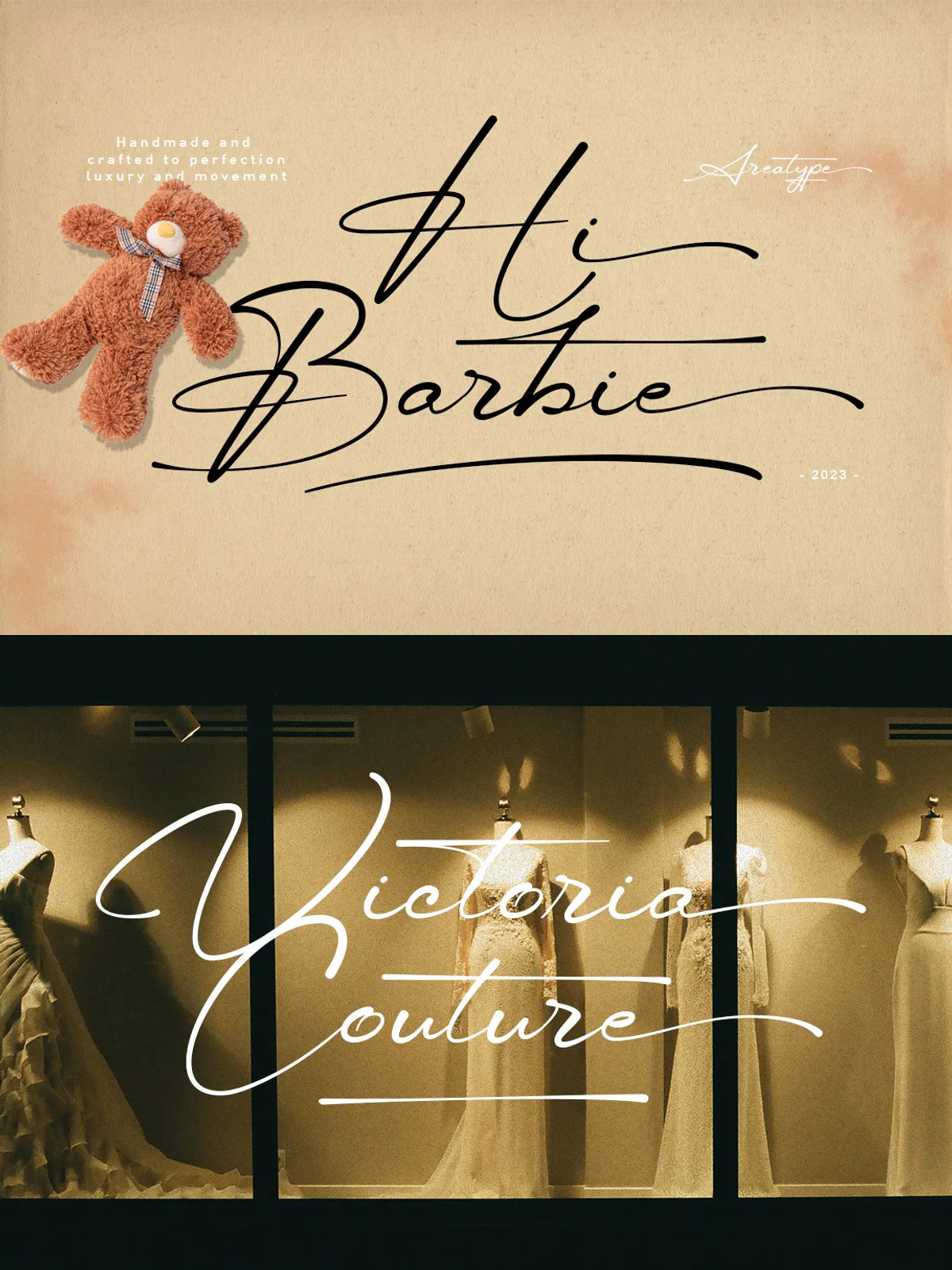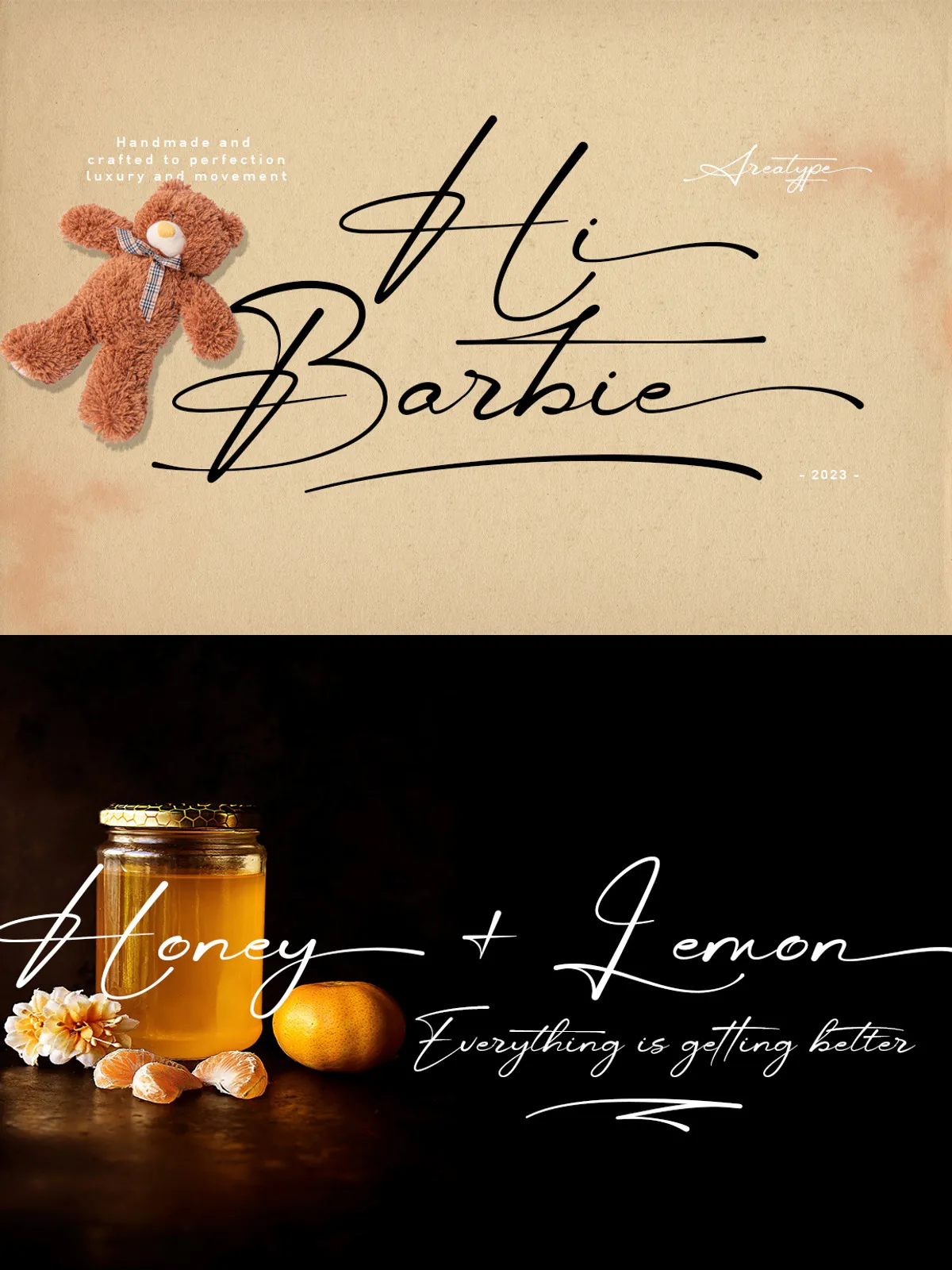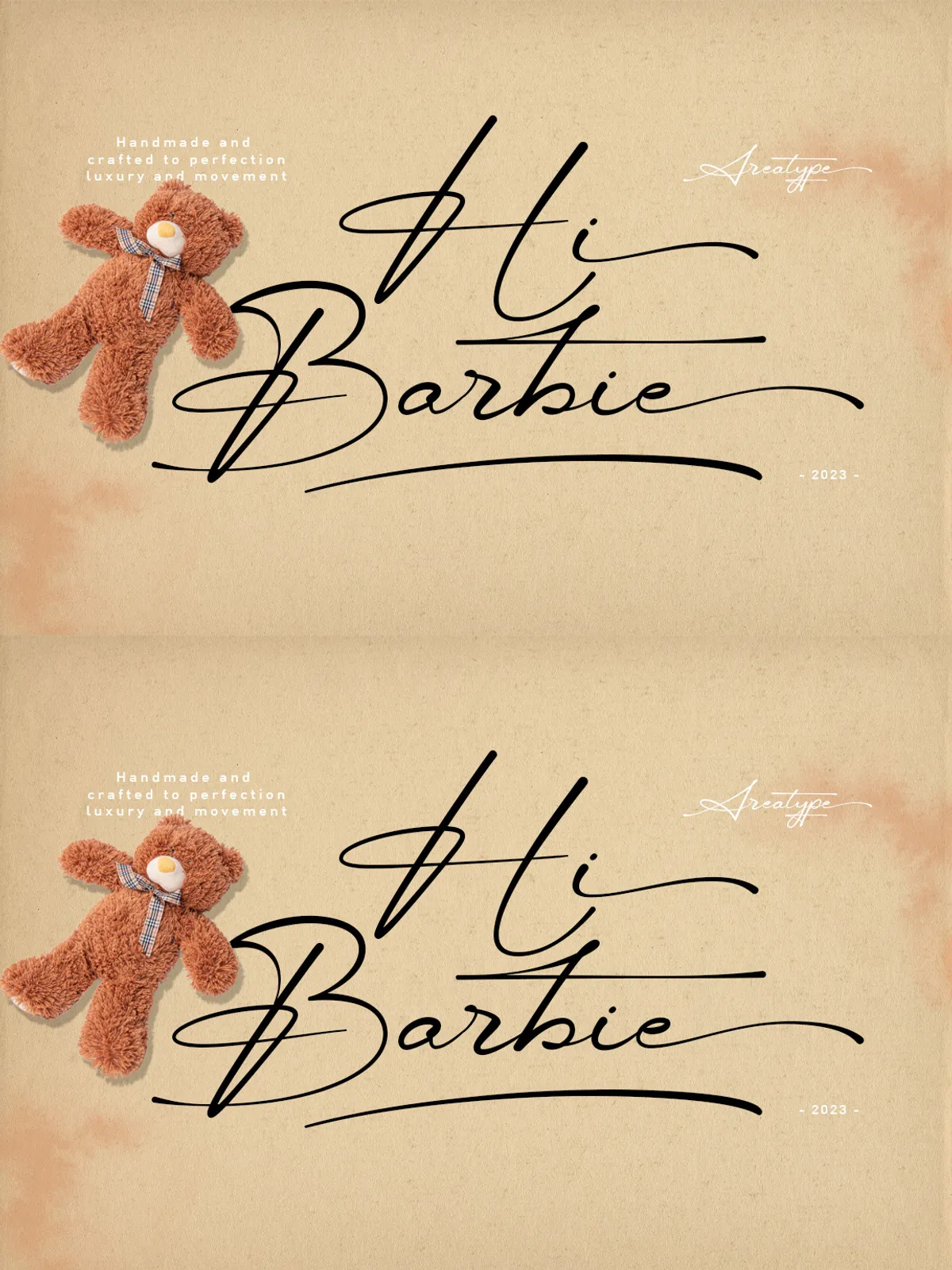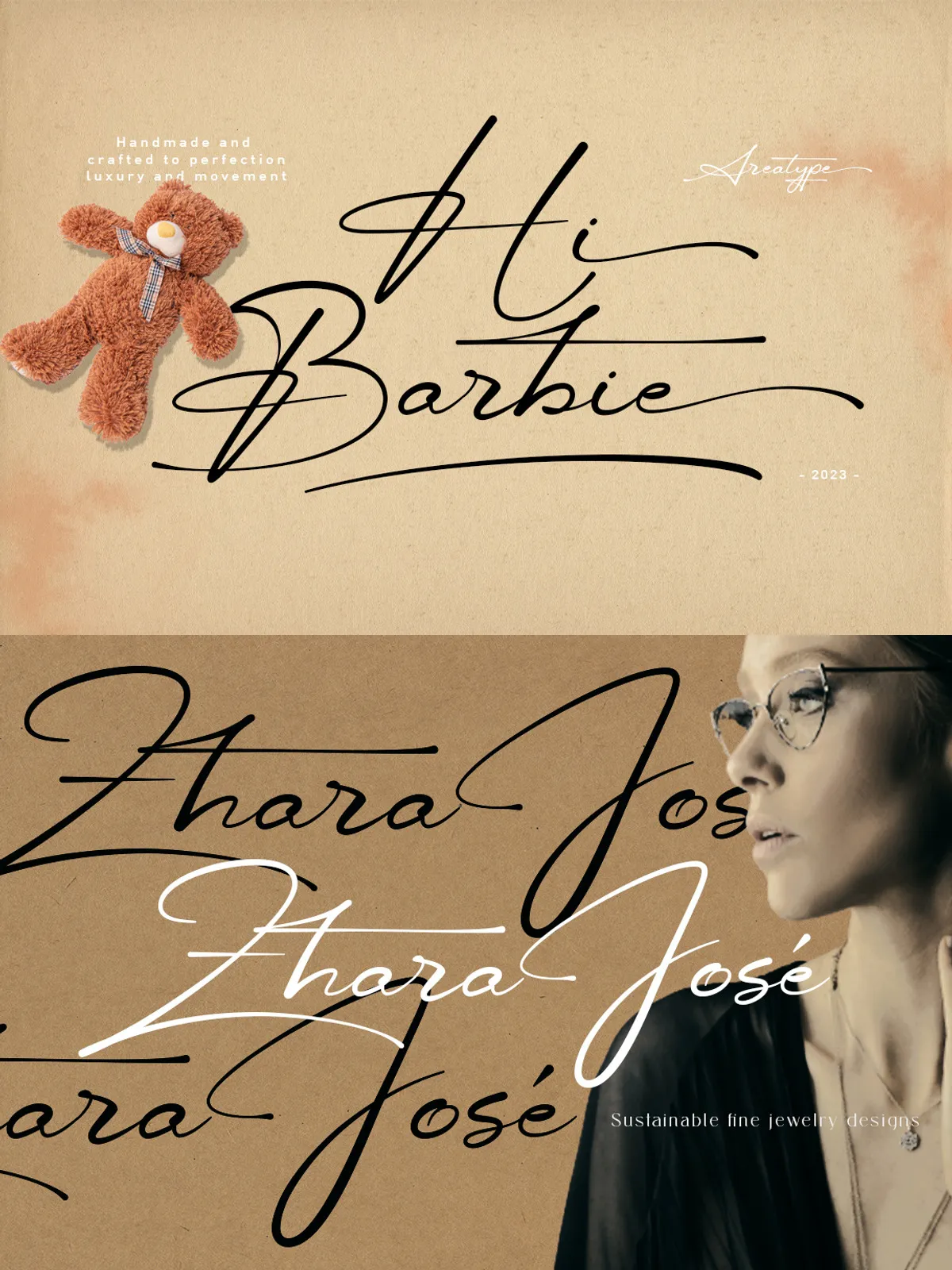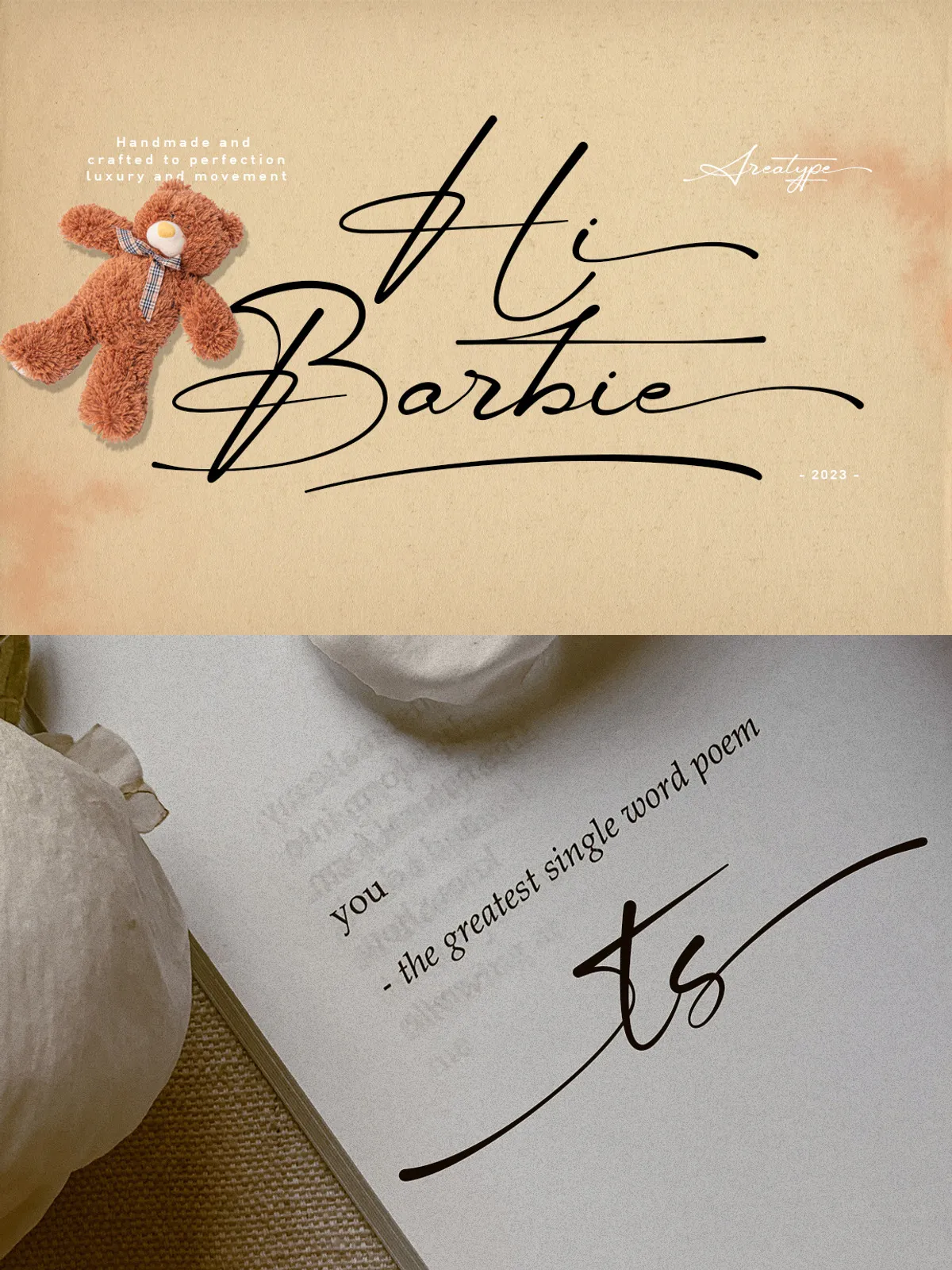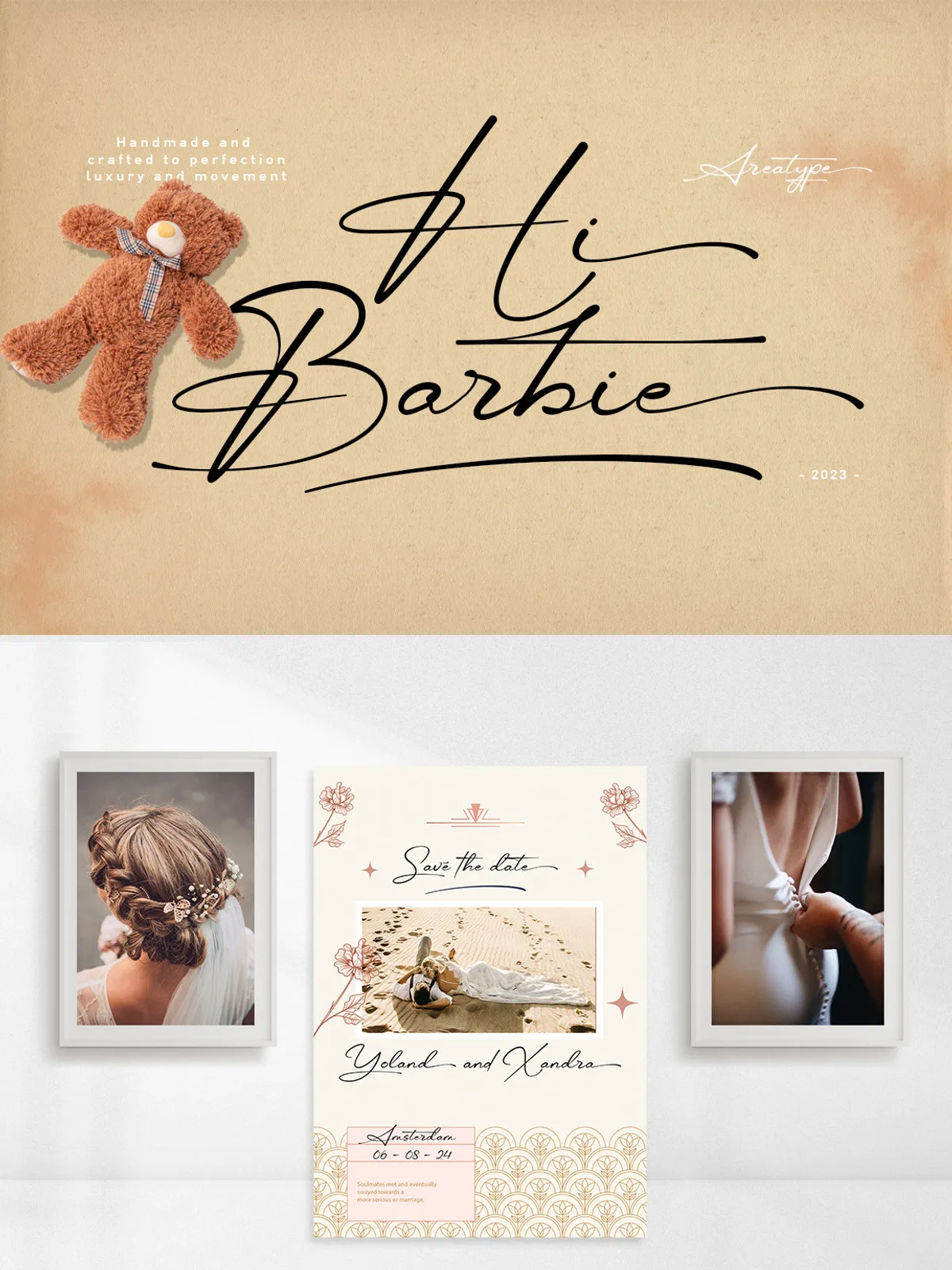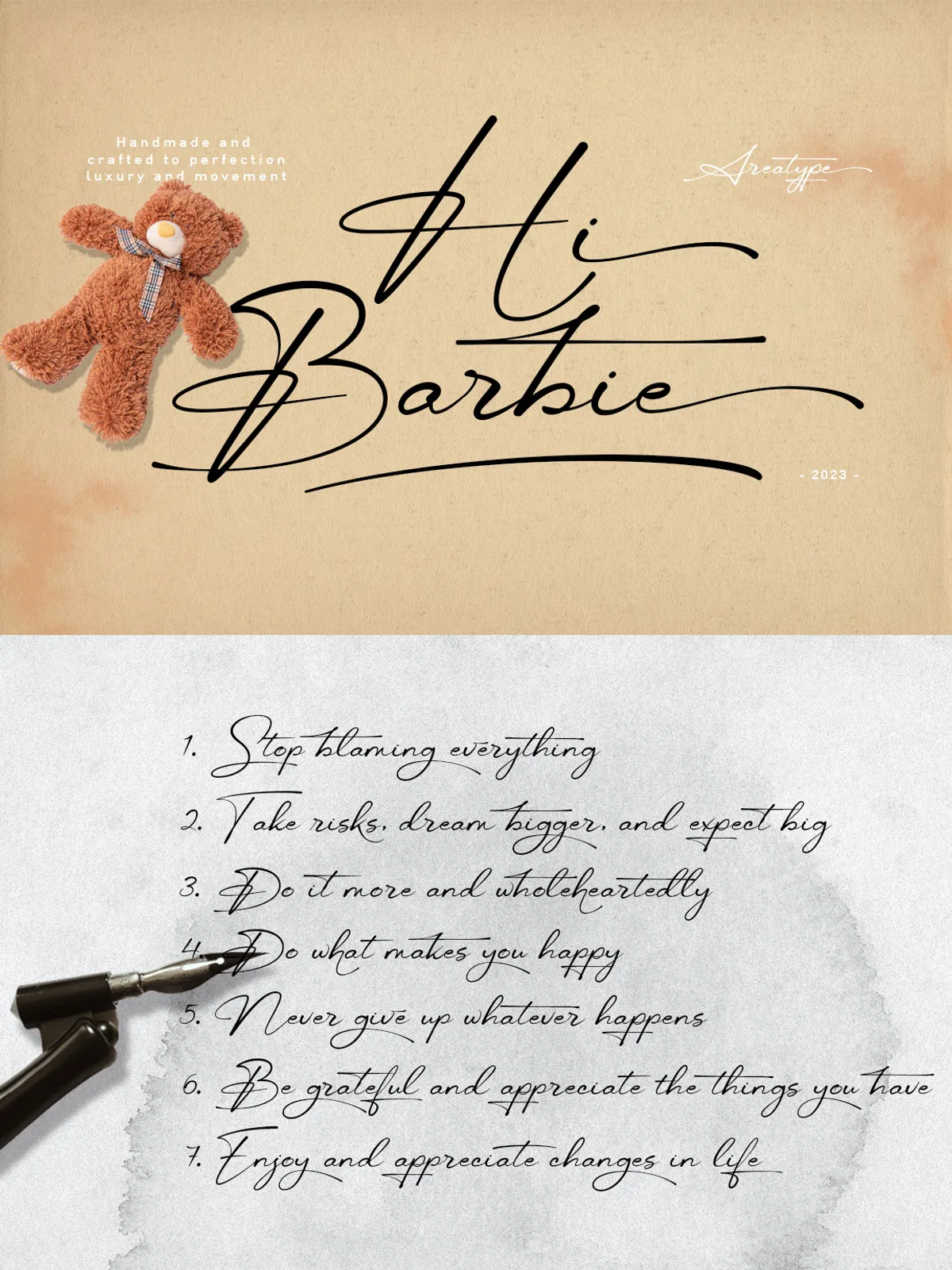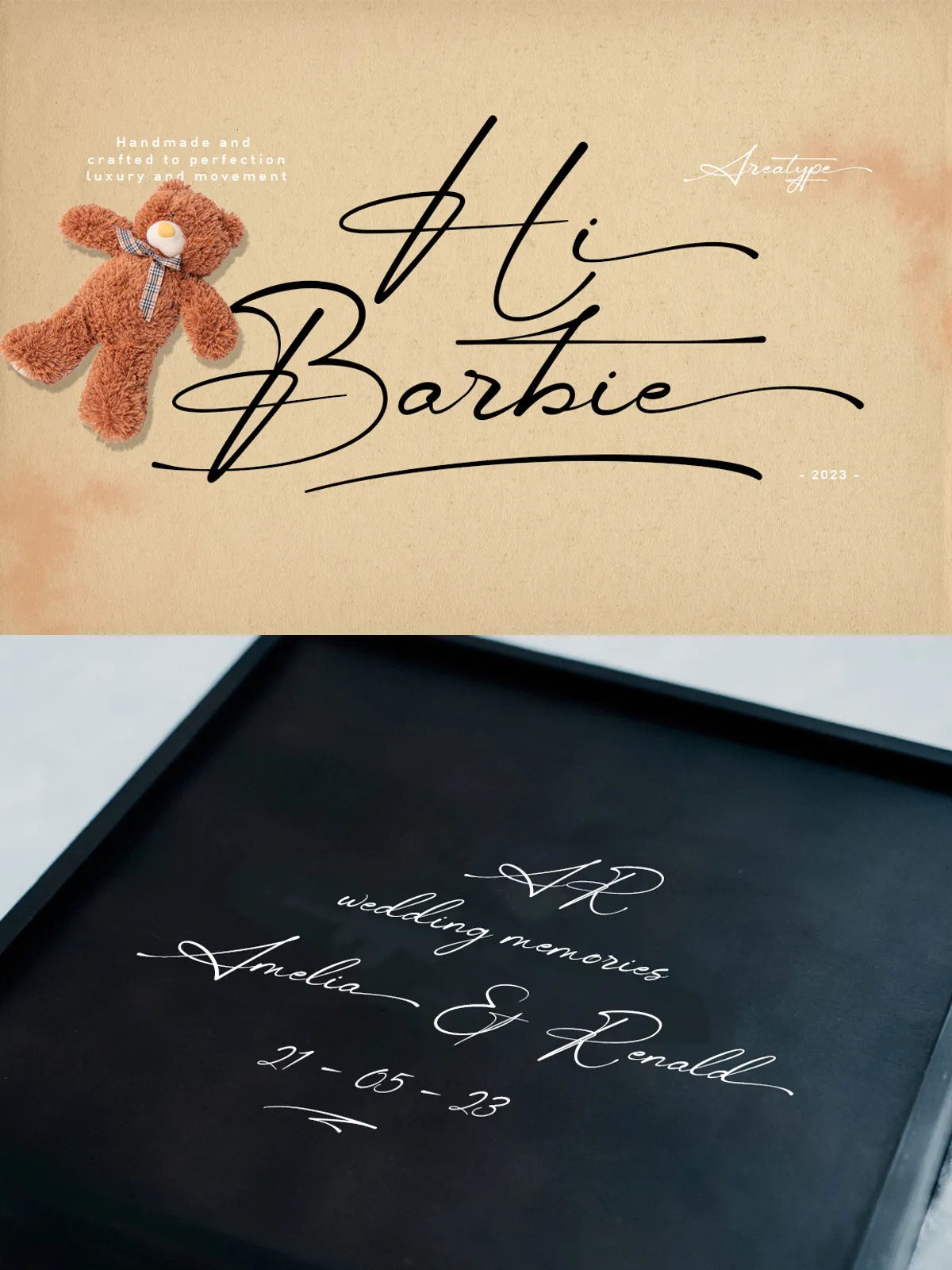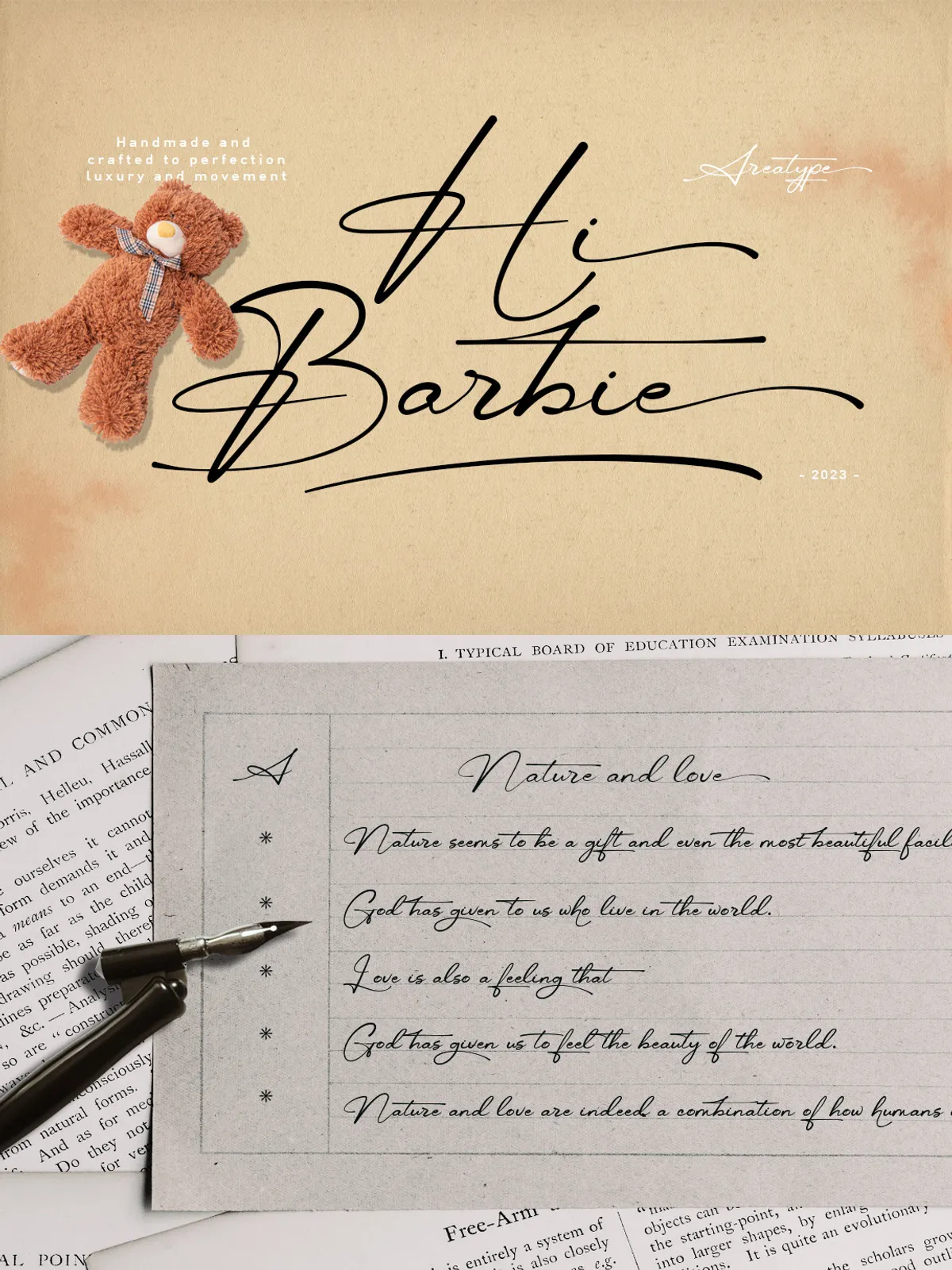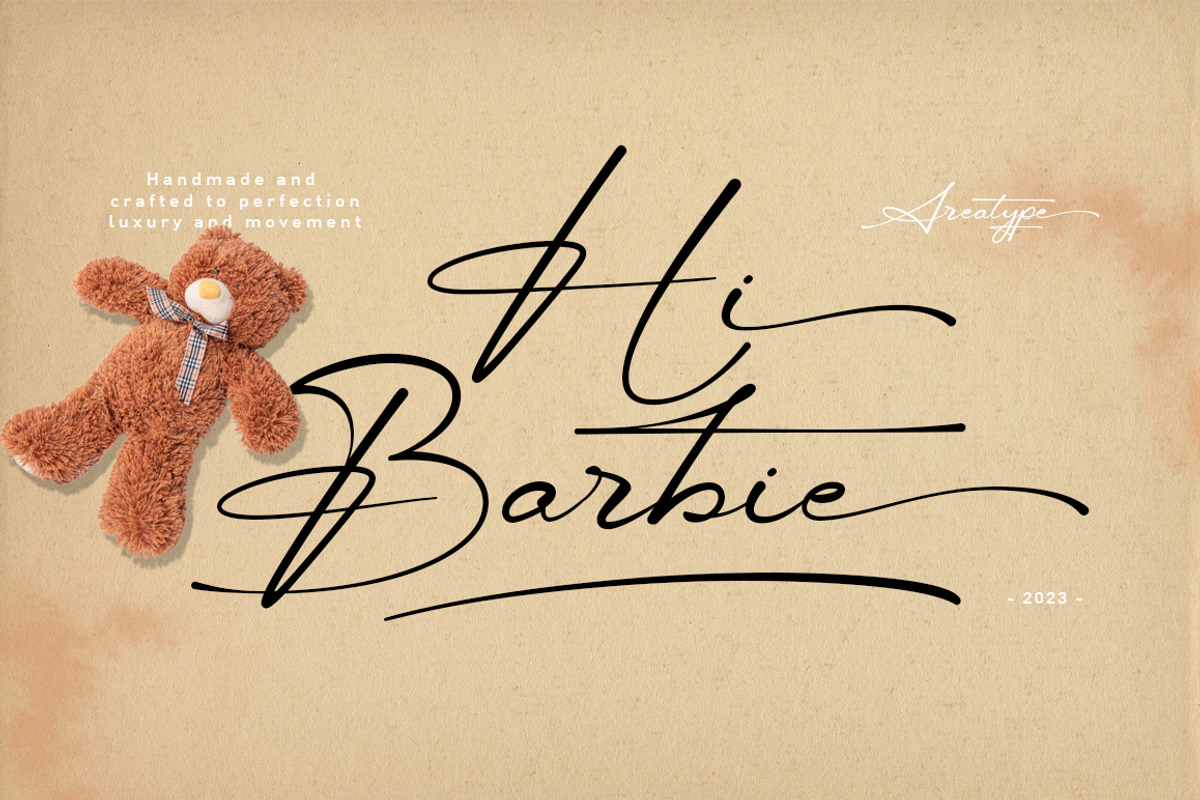
Hi Barbie Handmade
Introducing Hi Barbie, a delightfully expressive, handmade calligraphic font that blends modern flair with the warmth of hand-drawn artistry. This isn’t just a typeface — it’s a creative companion designed for those who value personality, movement, and visual storytelling in every project. With flowing strokes, bold swashes, and a natural, expressive rhythm, Hi Barbie adds a touch of personality and charm to everything it touches.
Dynamic & Expressive: Where Art Meets Typography
Hi Barbie is built for impact. Its dynamic structure and generous terminal swashes give the font a lively, expressive feel — perfect for adding movement and emotion to your work. Whether used in a bold headline or a delicate signature, it commands attention while maintaining readability and grace.
Use Hi Barbie to bring life to:
• Invitations, wedding stationery, and event signage with a personal, curated touch.
• Brand logos and identity systems that stand out with authentic character.
• Poster designs, badges, labels, and product packaging with a handmade, artisanal appeal.
• Newsletters and digital content that feel warm, inviting, and creatively alive.
Powerful OpenType Features for Professional Creatives
Hi Barbie isn’t just beautiful — it’s intelligent. Designed with advanced OpenType features, this font empowers designers to create polished, professional outputs with minimal effort and maximum control.
Smart Typographic Tools Built In
Take full advantage of:
• Multiple Ligatures: Automatically connect letter pairs (like ‘fi’, ‘fl’, ‘ff’) for a clean, uninterrupted flow.
• Stylistic Alternates & Swash Variants: Easily swap in different forms of letters to add visual interest and avoid repetition.
• Extended Character Set: Supports over 50 Western languages, including French, German, Spanish, Italian, Dutch, Portuguese, and Scandinavian languages.
• True Contextual Styling: The font adapts intelligently to context — swashes appear naturally at the end of words, enhancing readability and aesthetic unity.
Every feature is optimized for seamless use in professional workflows, from Adobe InDesign and Illustrator to web design and print production.
Ready for Any Creative Challenge
Hi Barbie thrives across platforms and projects. Whether you’re designing for digital, print, or social media, this font adapts with grace and presence.
Perfect for: Branding, Design, and Personal Projects
• Wedding & Event Invitations: Add a romantic, heartfelt touch that makes every guest feel special.
• Logo & Brand Identity: Stand out with a mark that feels personal, unique, and artistically bold.
• Signage & Environmental Design: Create clear, stylish signs that welcome and inspire.
• Merchandise & Packaging: Elevate labels, tote bags, boxes, and more with a handcrafted aesthetic.
• Digital Content & Social Media: Use in overlays, quotes, and posts to inject warmth and creativity.
Bring your creative vision to life with Hi Barbie — a font that doesn’t just write words, it tells stories.
Design with Soul, Create with Joy
Hi Barbie is more than a font — it’s a celebration of handmade craft, expressive design, and joyful creativity. It’s for designers who believe that typography should feel human, not mechanical.
Don’t just type — express. Don’t just design — connect. Choose Hi Barbie and let every letter carry a story, a smile, and a heart.